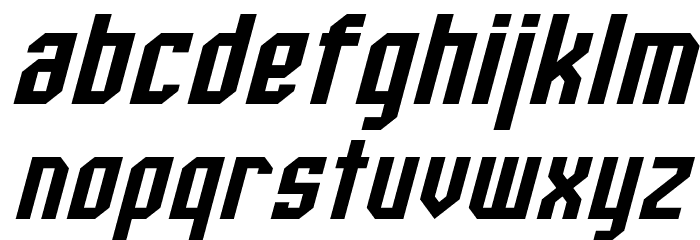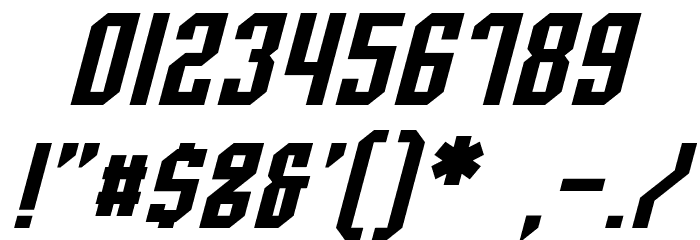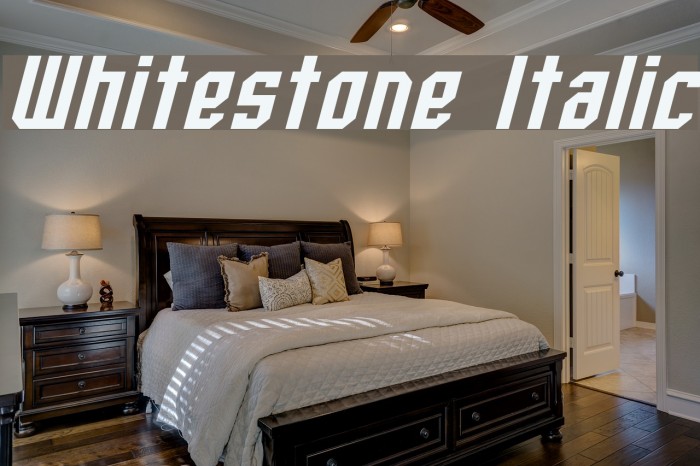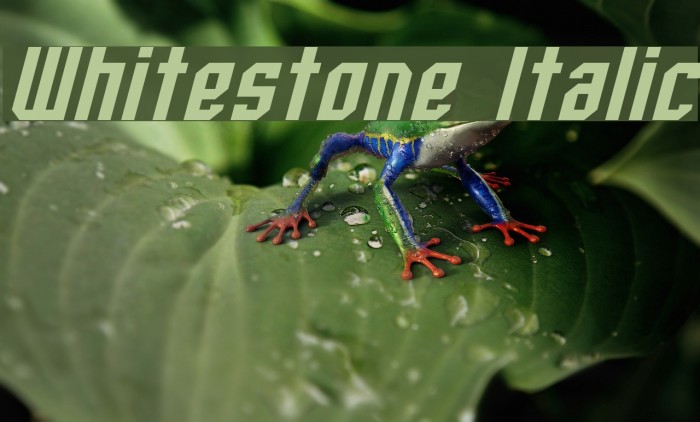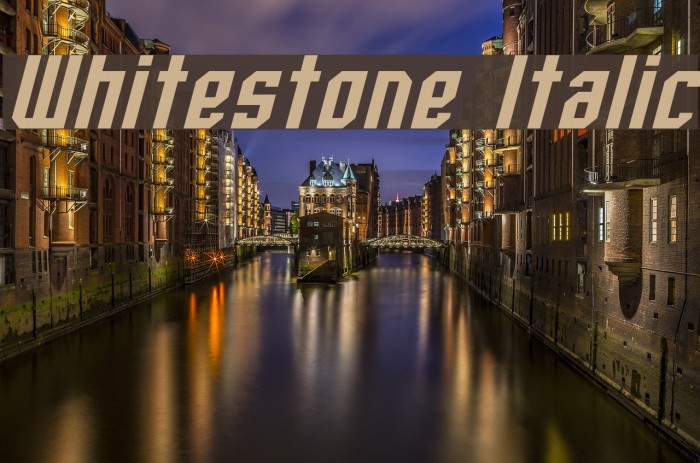
Whitestone Italic Font
This font features a bold, italicized style with a strong geometric influence. The characters are sharply angled, giving a dynamic and energetic feel. The uppercase letters are tall and commanding, while the lowercase letters maintain a consistent slant, enhancing the italic effect. Numbers and special characters follow the same angular design, ensuring uniformity across the typeface. The strokes are thick, providing a high contrast that makes the font stand out, suitable for attention-grabbing headlines or impactful logos.
A bold, italicized font with sharp angles and high contrast.
- Proposed Projects: Ideal for sports branding, dynamic posters, or modern digital interfaces.